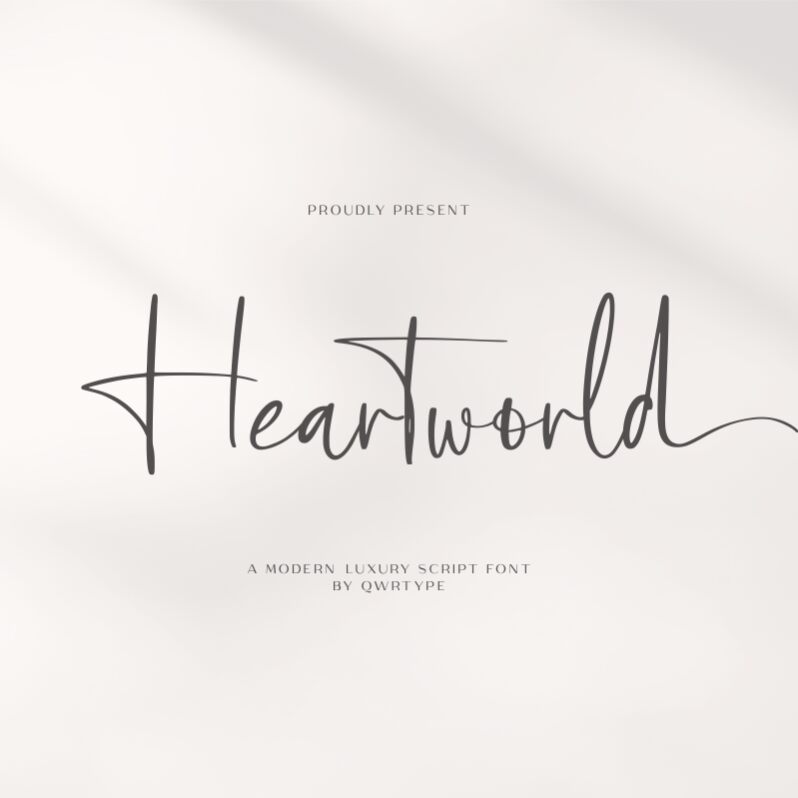
Heartworld
Heartworld from Qwrtype Foundry is a light signature handwritten font. It's the perfect choice for creating eye-catching logos, wedding invitations, quotes and other creative projects.